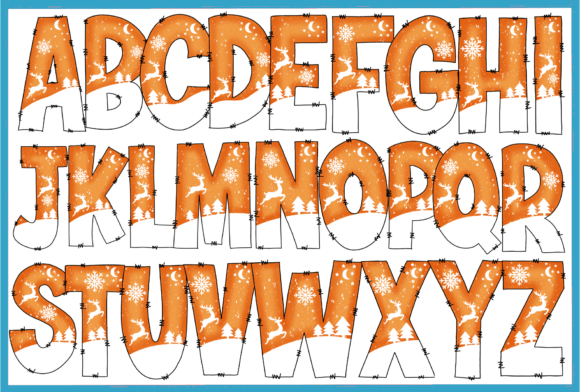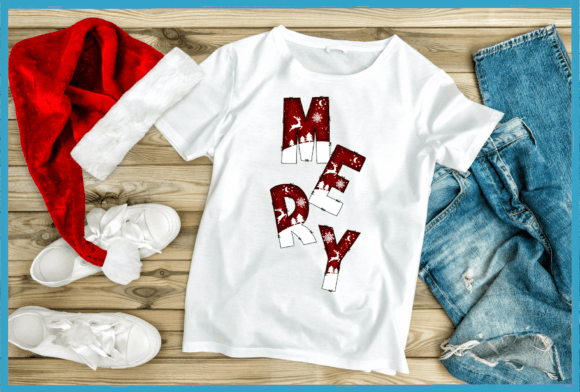
Christmas Snowly Font
Christmas Snowly is a fun, decorative font made for the holiday season. Each letter has snow patterns and cute deer shapes, adding a cozy, wintery feel to your text. It’s perfect for Christmas cards, festive posters, or any project needing a cheerful holiday touch.